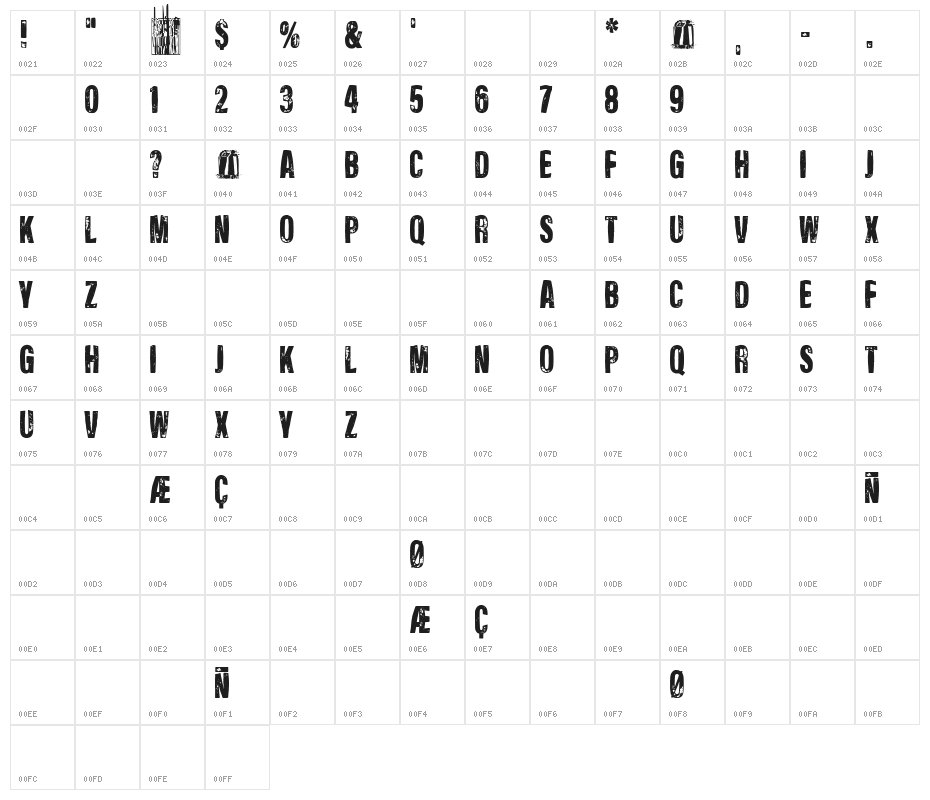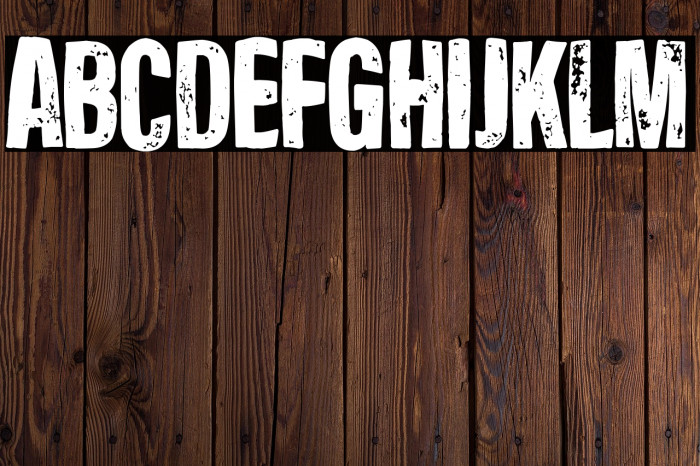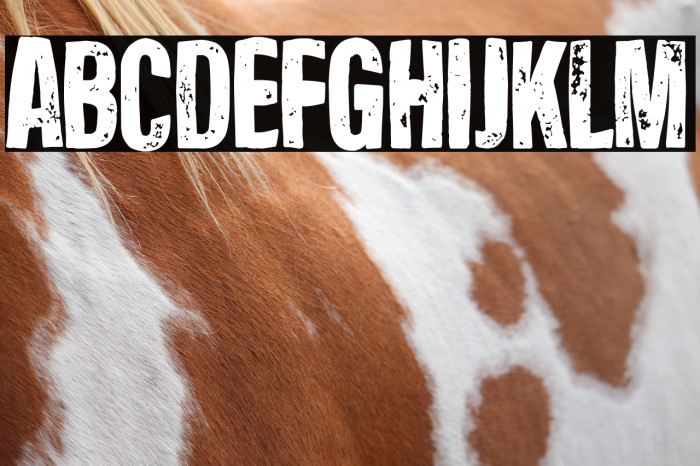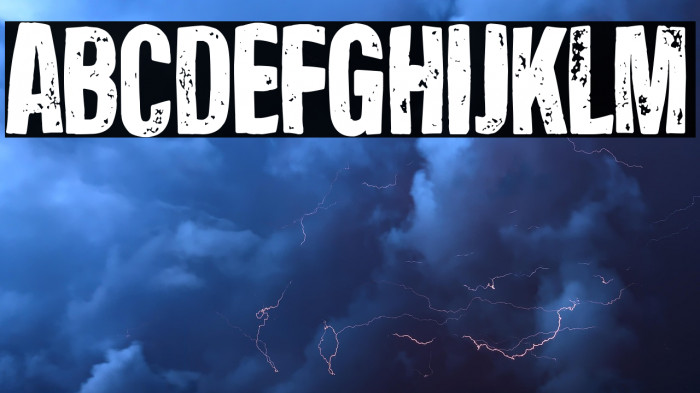
The Incredible Jesus Font
The Incredible Jesus Description
This font features a bold and distressed style, giving it a rugged and vintage appearance. The characters are heavily textured, with a worn-out look that adds a sense of history and character. The uppercase and lowercase letters maintain a consistent weight, with slightly irregular edges that enhance the distressed effect. The numbers and special characters follow the same design, ensuring uniformity across all glyphs. This font's unique style makes it stand out, perfect for projects that require a bold, eye-catching typeface with a touch of nostalgia.
| Proposed Projects | Ideal for posters, album covers, branding, and any design needing a bold, vintage touch. |